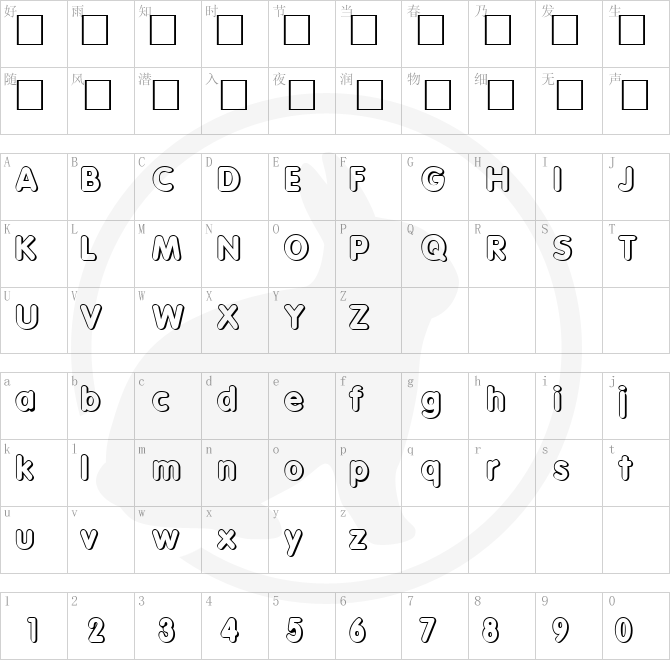
- Font Name:VagabondShadow
VagabondShadow-Regular-copy-1-.ttf is a very beautiful artistic font, VagabondShadow-Regular-copy-1-.ttf is widely used in the design and printing of various books and pictures,VagabondShadow-Regular-copy-1-.ttf has a strong visual impact,VagabondShadow-Regular-copy-1-.ttf is a commonly used font in newspapers, magazines and books, and is used in posters, e-commerce Poster design, store design, logo design, font design and other fields.VagabondShadow-Regular-copy-1-.